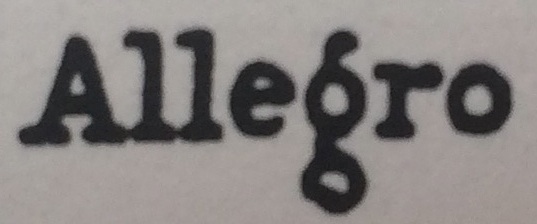
Looking for a close-match to this handwritten font (Samuel Barber score)
I'm looking for a font similar to this (presumably hand-written) one from a musical score by Samuel Barber (G. Schirmer's edition, if that matters to anyone). I'd like to get as close to this handwritten style as possible. Pictures have been taken by me, so apologies for the fuzziness of some.
Example 1:
Example 2:
Example 3: